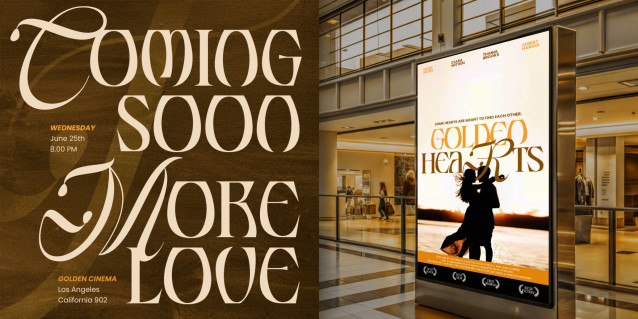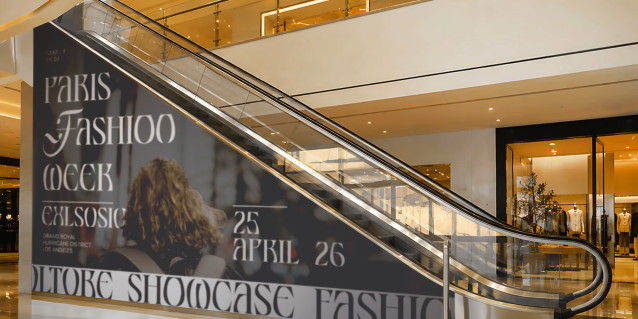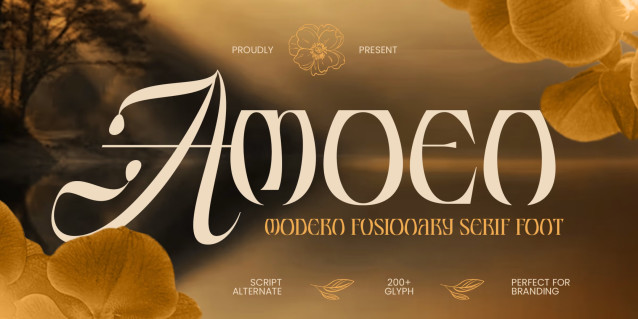
AMOEN – Modern Fusionary Serif Font
AMOEN is a modern fusion of refined serif forms and expressive script alternates, created to bring elegance, personality, and distinctive character to contemporary typography.
The combination of structured serif letterforms with graceful alternate scripts allows AMOEN to shift effortlessly between sophisticated, classic, and expressive aesthetics. Designed for visual identities that seek something beyond ordinary typography.
Perfect for luxury branding, fashion, beauty, editorial, packaging, wedding stationery, logos, headlines, and creative campaigns.